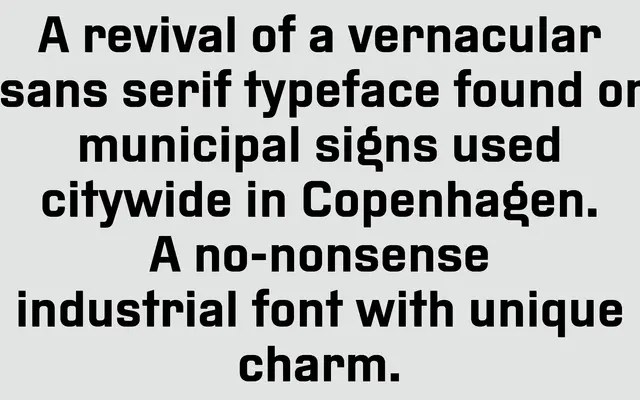
Copenhagen
A revival of the sans serif lettering found on municipal signs across Copenhagen, retaining its utilitarian, industrial character.
Drawn from the vernacular sans serif found on Copenhagen's citywide municipal signage, this three-weight family preserves the no-nonsense quality of its source material. The letterforms carry the slight idiosyncrasies of public lettering rather than the polish of a constructed geometric or humanist grotesque. It suits applications where an unpretentious, quietly distinctive sans is needed.
A revival of a vernacular municipal signage sans, fitting squarely within the grotesque tradition with an industrial, no-nonsense character typical of mid-century European public lettering.